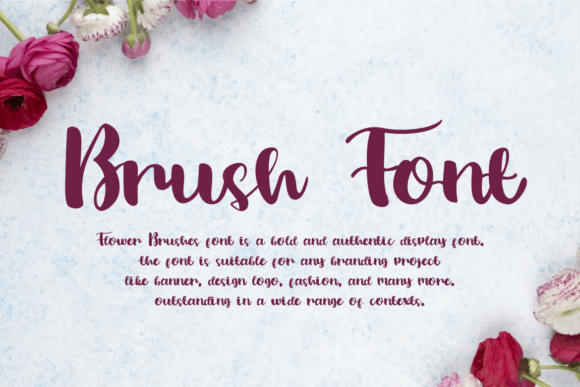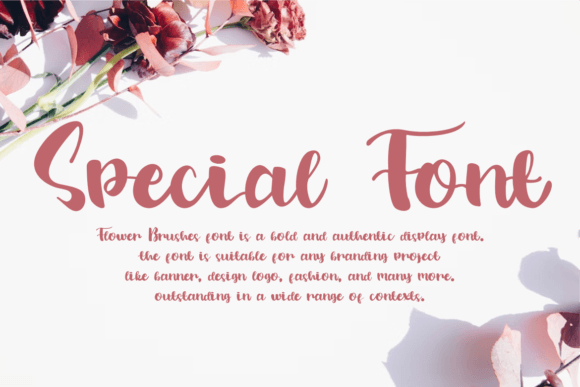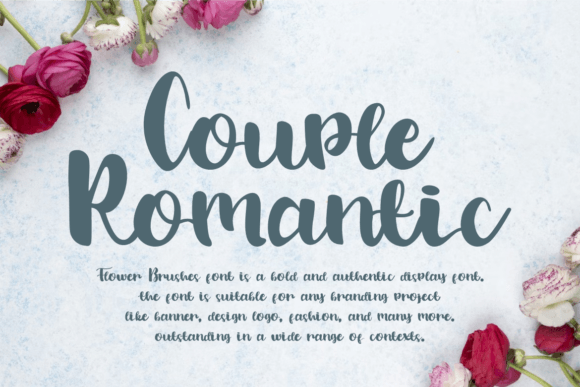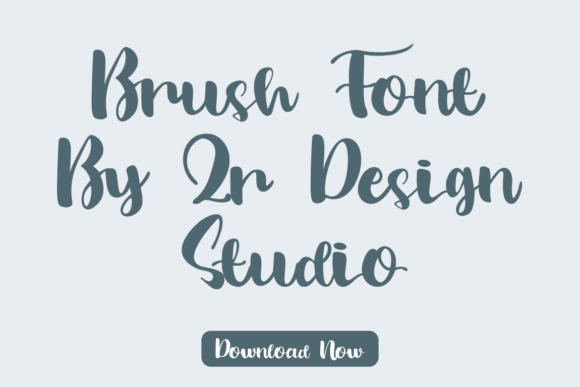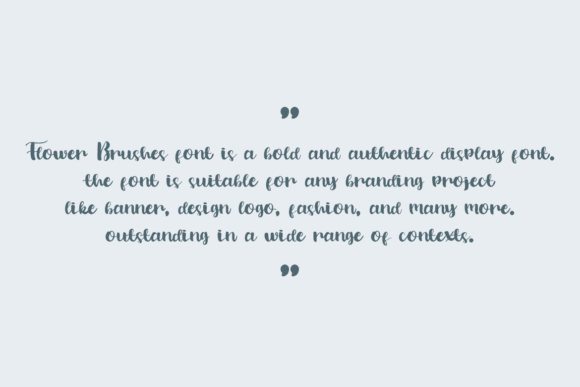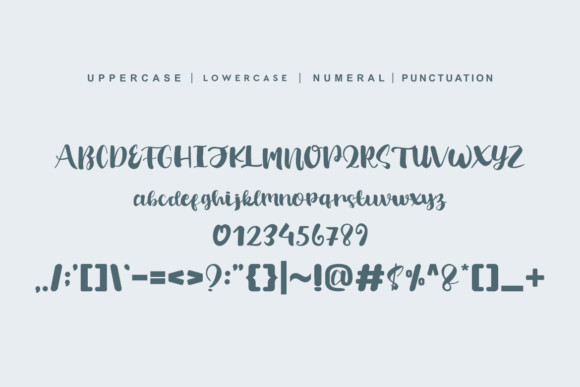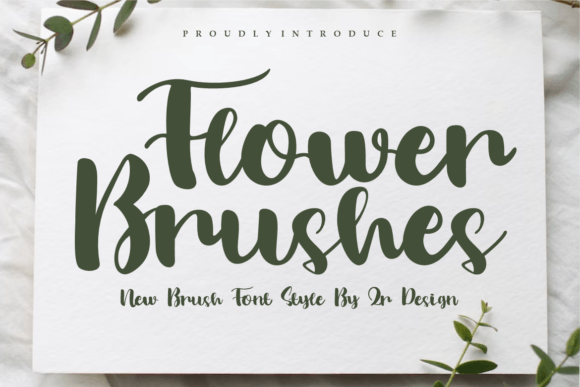
Introducing Flower Brushes Font: Elevate Your Designs with a Touch of Elegance
In the world of typography, fonts play a crucial role in conveying the tone and personality of a brand. For designers and crafters looking to add a touch of elegance and sophistication to their projects, Flower Brushes Font is an exceptional choice. This bold and authentic display font is designed to make a statement, making it perfect for a wide range of applications, from logos and t-shirt printing to fashion and more.
What Makes Flower Brushes Font Stand Out?
Flower Brushes Font is not just another font; it’s a design statement. Its unique brush-stroked texture gives it an organic, hand-crafted feel that’s hard to replicate with digital fonts alone. This distinctive characteristic makes it outstanding in a wide range of contexts, allowing designers to create visually appealing and memorable brand identities.
Key Features of Flower Brushes Font
- Bold and Authentic Display Font: Flower Brushes Font is crafted to grab attention. Its bold appearance ensures that your message is conveyed with impact, making it perfect for headlines, titles, and any design element you want to stand out.
- Versatility: Whether you’re working on a branding project, designing a logo, creating custom t-shirts, or developing fashion-related content, this font adapts seamlessly. Its versatility is one of its strongest assets, allowing it to be used across various mediums and applications.
- Elegance and Sophistication: The font’s design exudes elegance and sophistication, making it an excellent choice for designers and crafters who want to add a touch of class to their work. It’s particularly suited for projects where making a stylish impression is key.
- Easy to Read: Despite its bold and decorative nature, Flower Brushes Font maintains a high level of readability. This ensures that your message is not only visually appealing but also easily understood by your audience.
Applications of Flower Brushes Font
The applications of Flower Brushes Font are vast and varied. Here are a few ideas to get you started:
- Logo Design: Create a memorable logo that stands out. The font’s unique texture and bold appearance make it perfect for logos that need to convey a sense of elegance and professionalism.
- T-Shirt Printing: Design custom t-shirts for fashion brands, events, or promotional campaigns. The font’s stylish and eye-catching appearance ensures that your designs will be popular with a wide audience.
- Fashion Design: From fashion labels to advertising campaigns, Flower Brushes Font can add a touch of sophistication and glamour to your fashion-related projects.
- Branding Projects: Enhance your brand’s visual identity with this distinctive font. It’s perfect for creating a cohesive and stylish brand image across various platforms.
Why Choose Flower Brushes Font?
In a sea of digital fonts, Flower Brushes Font offers something unique and refreshing. Its combination of boldness, elegance, and versatility makes it an invaluable tool for designers and crafters looking to elevate their designs. By choosing Flower Brushes Font, you’re opting for a font that can help you:
- Stand out in a crowded market
- Convey a sense of sophistication and elegance
- Create visually appealing and memorable designs
- Adapt to various design applications and mediums
Flower Brushes Font is more than just a font; it’s a design solution that can transform your projects with its bold, authentic, and elegant appearance. Whether you’re a designer, crafter, or simply someone looking for a unique font to enhance your creative projects, Flower Brushes Font is an excellent choice. Its versatility, readability, and stylish texture make it suitable for a wide range of applications, from logos and t-shirt printing to fashion and branding projects. Elevate your designs with a touch of elegance and make a lasting impression on your audience with Flower Brushes Font.